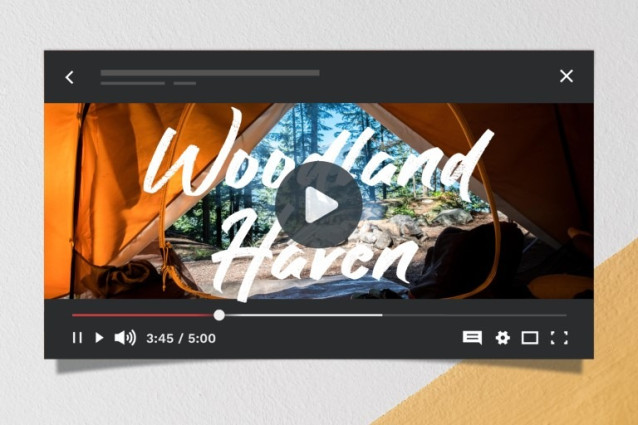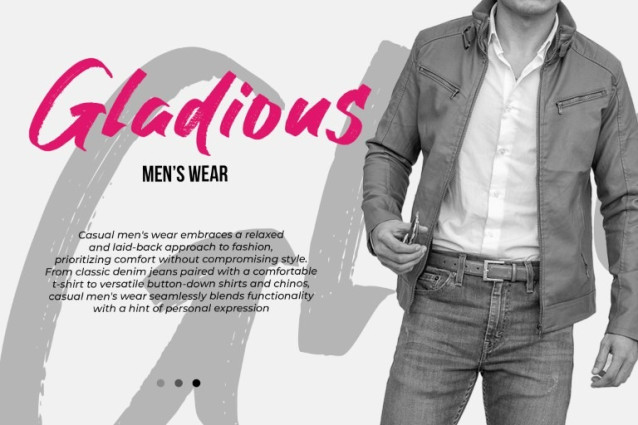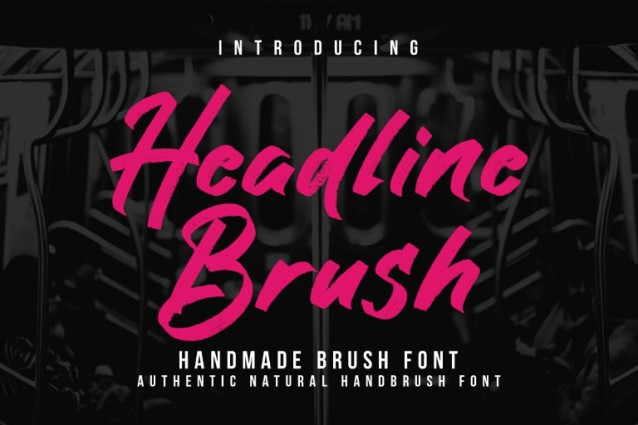
Headline Brush Font
Headline Brush Font is a versatile brush script font designed for a natural, casual feel. Crafted from hand-brushed letters scanned into vector format. Making it ideal for diverse projects like logo design, poster design, blog titles, posters, clothing, and branding. The font’s variations and alternative underlines enhance text and design, adding a distinctive touch to any professional endeavor.